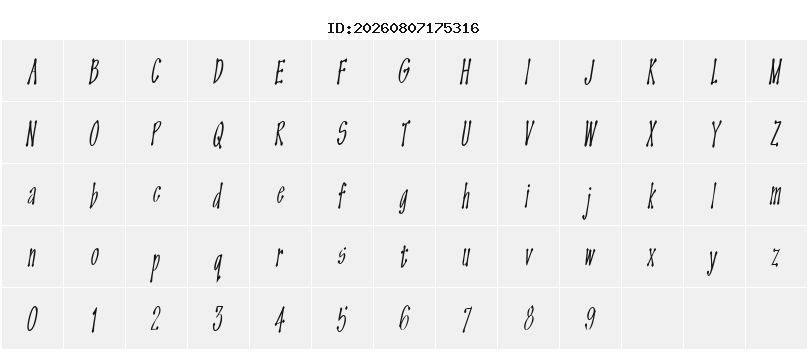
OMEGA Old Face Preview
• Font Name: OMEGA Old Face
• Full Font Name: OMEGA Old Face
• Version: 1.0 of this oldie styled cool type font thingie
About OMEGA Old Face.ttf
OMEGA Old Face.ttf is a modern, elegant sans-serif font designed for ultimate readability and visual harmony. Perfect for branding, headlines, web design, and print materials.